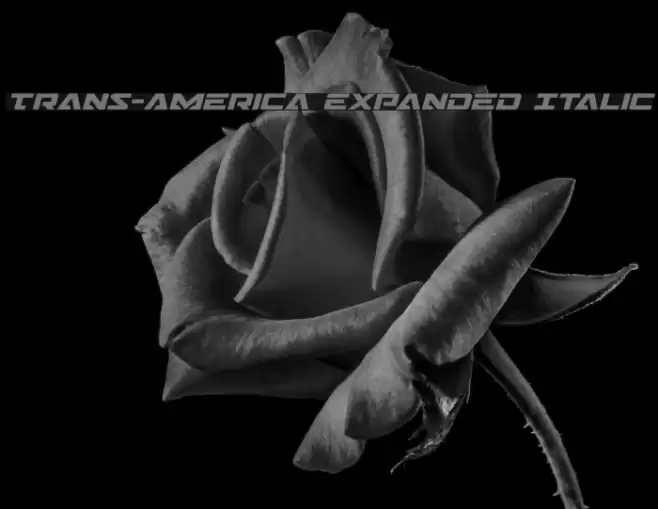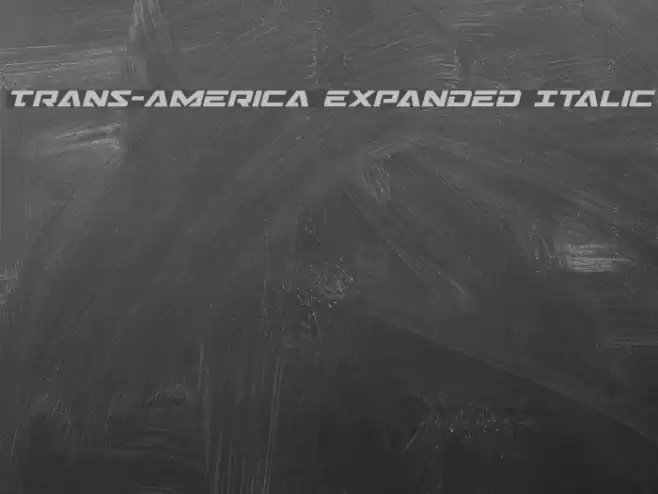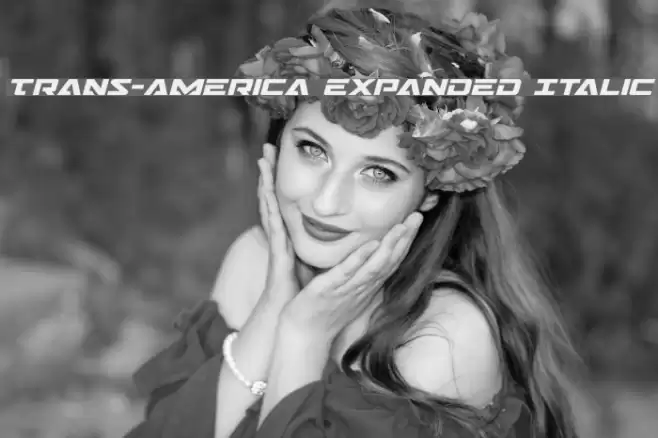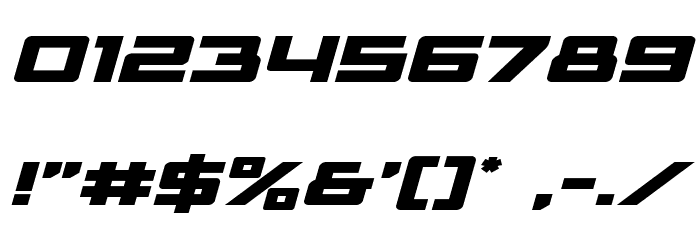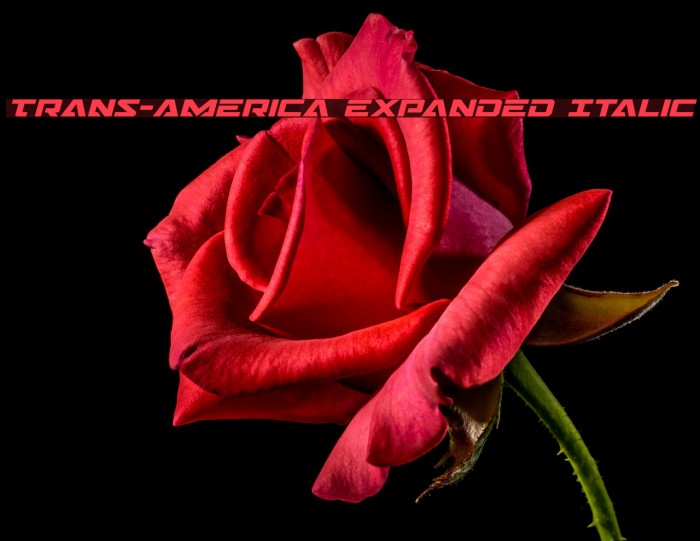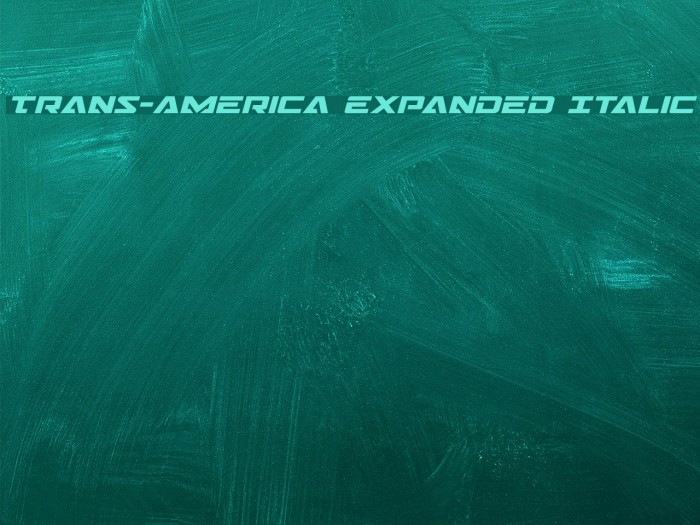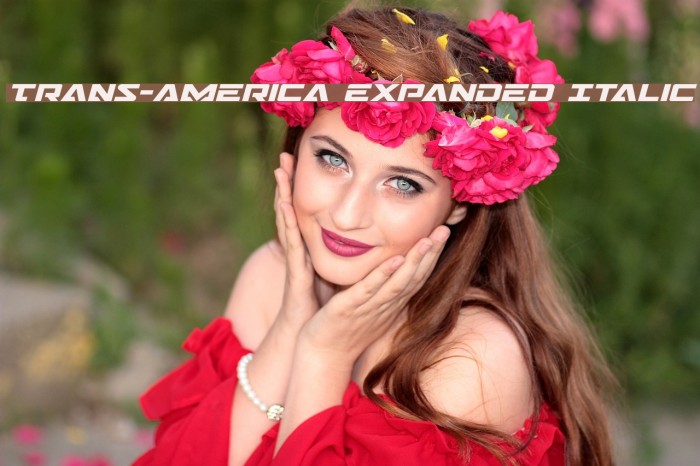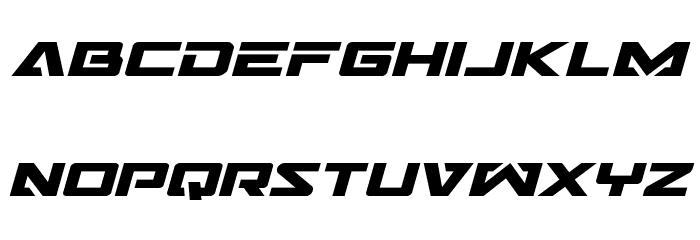
Trans-America Expanded Italic Font
Trans-America Expanded Italic Description
This font features a bold and dynamic style with a distinctly modern flair. The characters are italicized and expanded, giving them a sense of movement and speed. Each letter is crafted with sharp angles and clean lines, creating a futuristic and sleek appearance. The numbers and special characters maintain this cohesive design, ensuring uniformity across all glyphs. The overall aesthetic is both powerful and stylish, making it suitable for projects that require a strong visual impact.
A bold, italicized, and expanded font with a modern, dynamic style from Uncategorized fonts.
- Proposed Projects: Ideal for use in branding, sports team logos, automotive advertisements, and technology-related designs.
- Use Case: Logos, Headlines, Branding